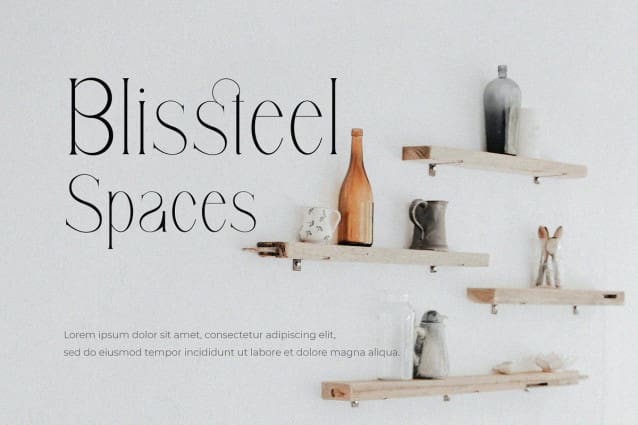
Gllifan Font
Gllifan Font is a elegant and classy serif typeface – This font is both modern and nostalgic and works great for logos, magazine, social media. Already matched up and ready to be used together for your next design! For those of you who are needing a touch of elegant, stylish, classy, chic and modernity for your designs, this font was created for you!
Gllifan Font was built with OpenType features and includes ligatures, numbers, punctuation, and it also supports other languages.